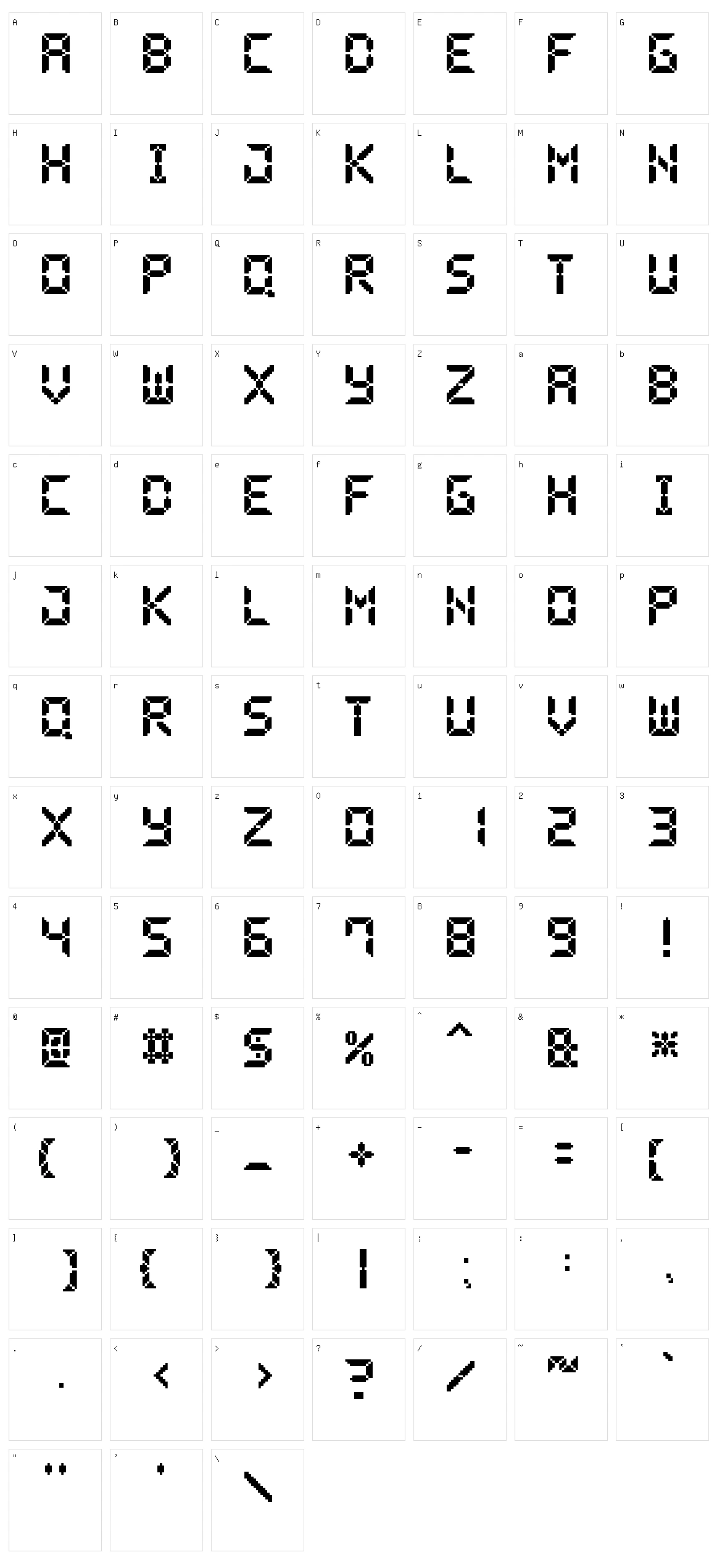
Pixel LCD7
Original pixel font like seven-segment clock faces. Native size is 15 points. Only Cyrillic code page is supported.
* Some font metrics are changed.